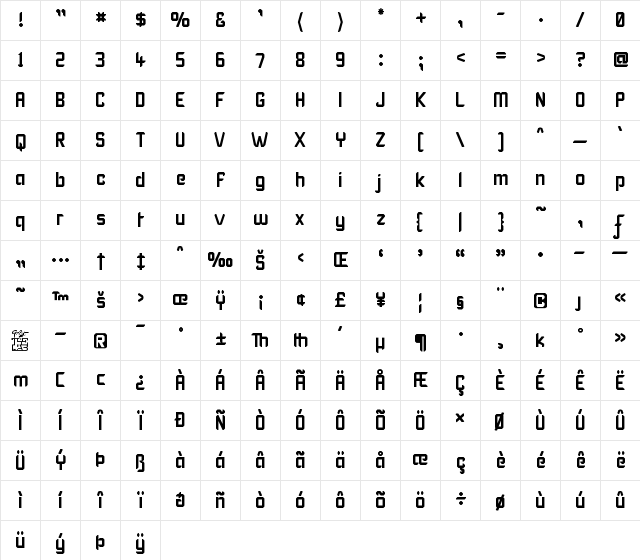
Karisma Regular
| Designer | Graham Meade |
Design Context for Karisma Typeface
Karisma takes a measured approach to typography — its balanced proportions and neutral character make it a reliable workhorse for both digital and print work.